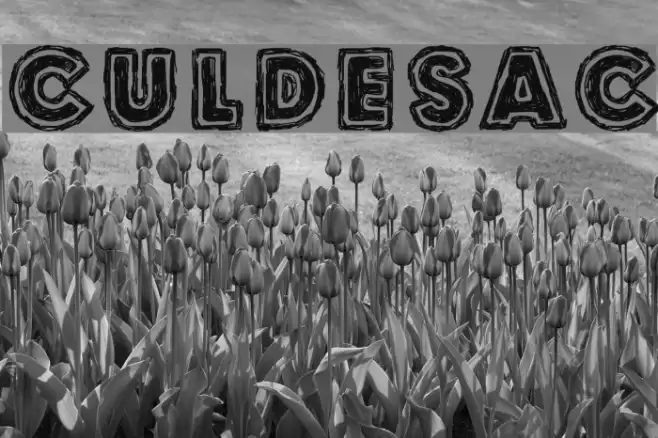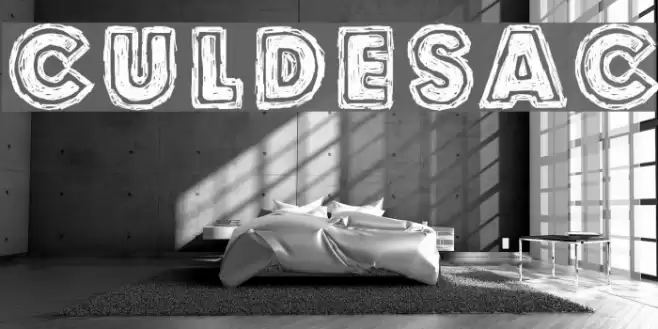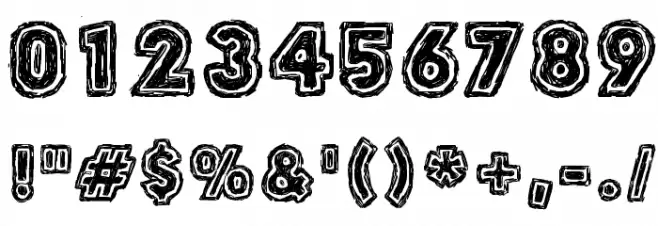
Culdesac Font
Culdesac Description
This font features a bold, playful style with a hand-drawn appearance. Each character is outlined with a thick, uneven stroke, giving it a rugged and textured look. The letters are uppercase and lowercase, with numbers and a variety of special characters included. The design is reminiscent of chalk or crayon drawings, making it ideal for projects that require a casual, artistic touch. The characters are well-spaced, ensuring readability while maintaining a unique, eye-catching aesthetic.
A bold, hand-drawn font with a textured, playful style from Uncategorized fonts.
- Proposed Projects: Ideal for children's book covers, playful posters, creative branding, and artistic invitations.
- Overall Style: Playful, Artistic